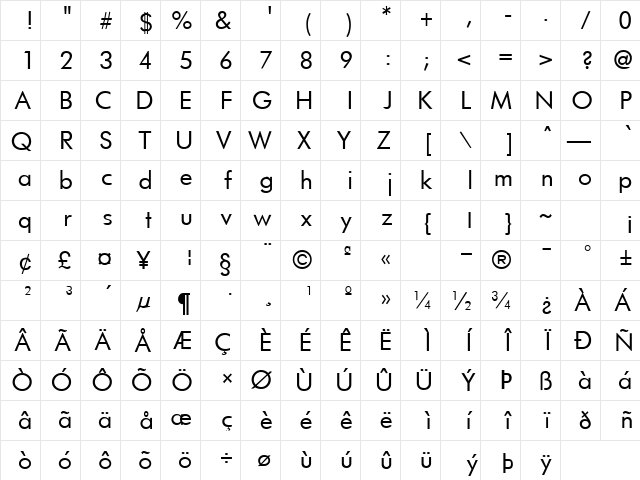
Docu Regular
Design Context for Docu Typeface
Docu takes a measured approach to typography — its balanced proportions and neutral character make it a reliable workhorse for both digital and print work.